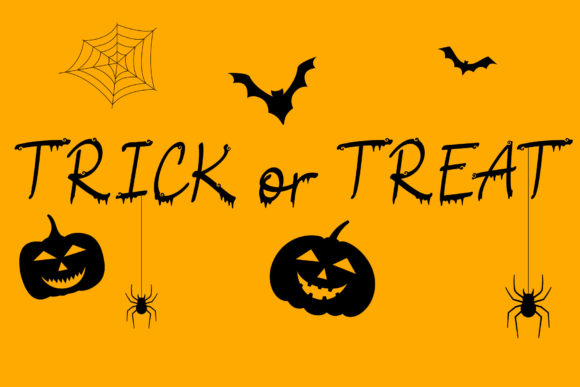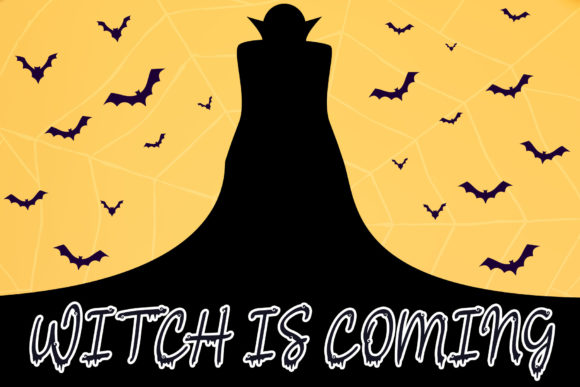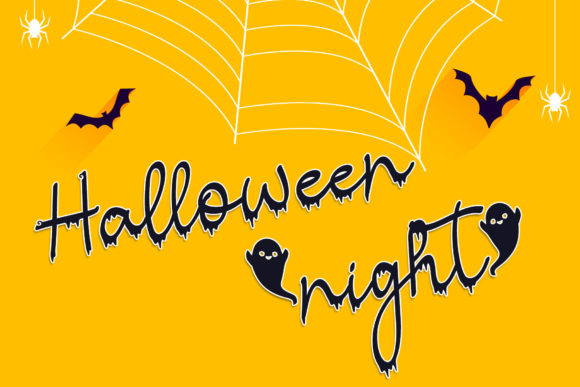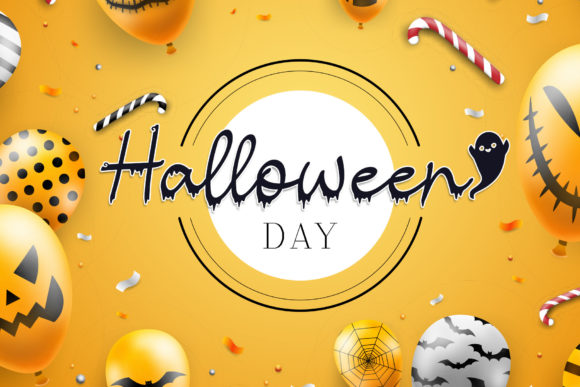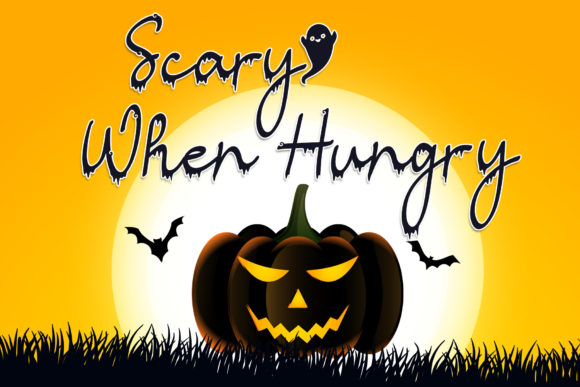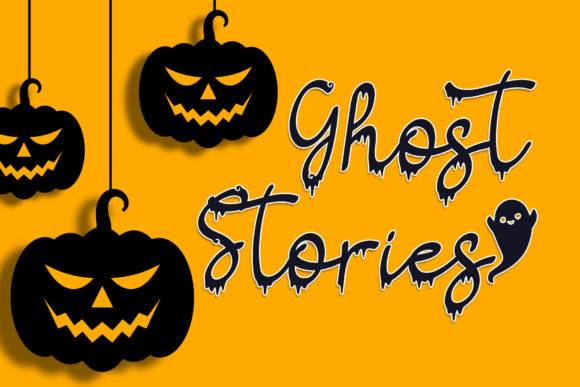
Introduction to Halloween Script Font
Halloween Script is a cool and spooky handwritten font.
It is perfectly suitable for any Halloween-related project or crafty idea It is also PUA encoded which means you can access all of the glyphs and swashes with ease.
Key Features of Halloween Script Font